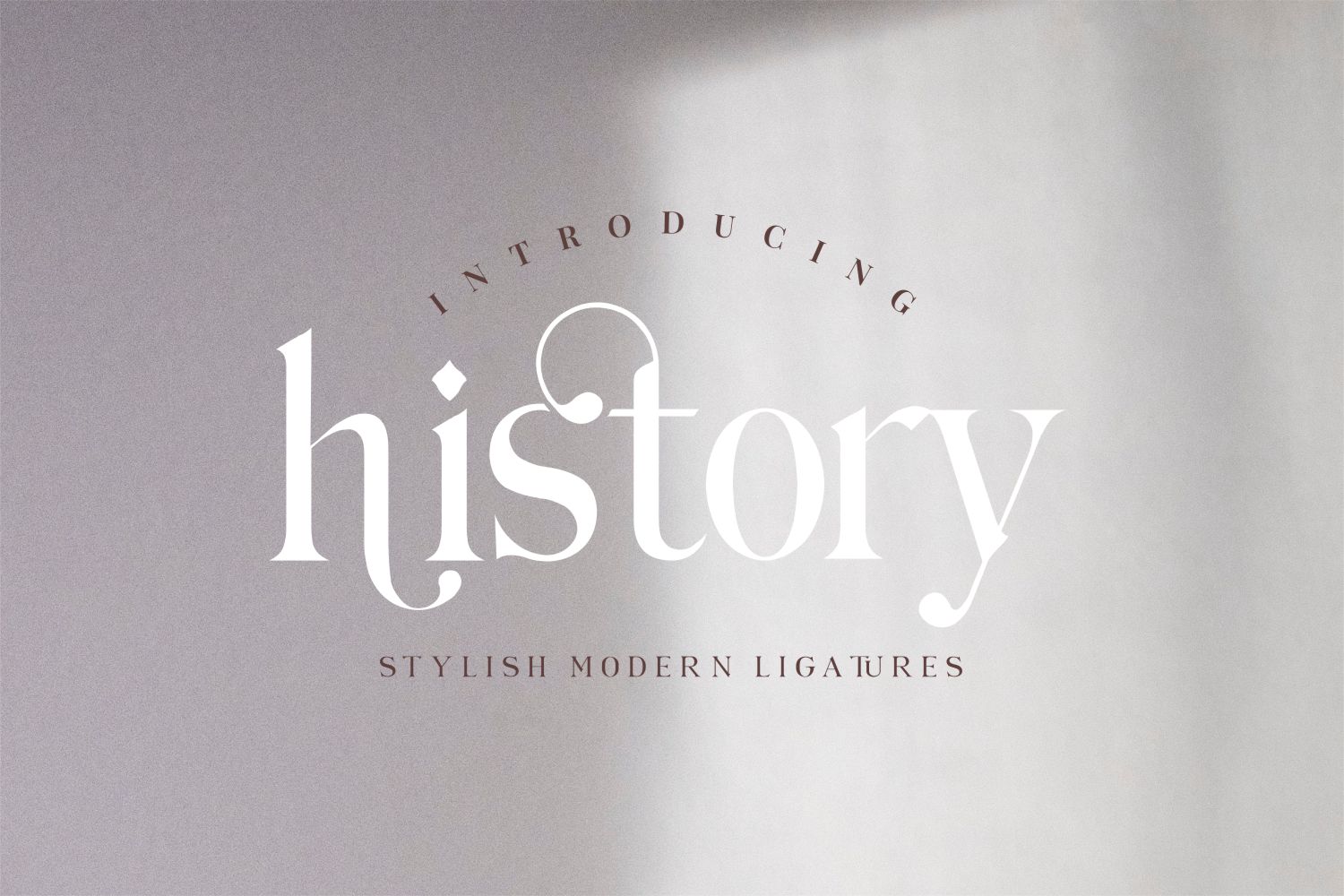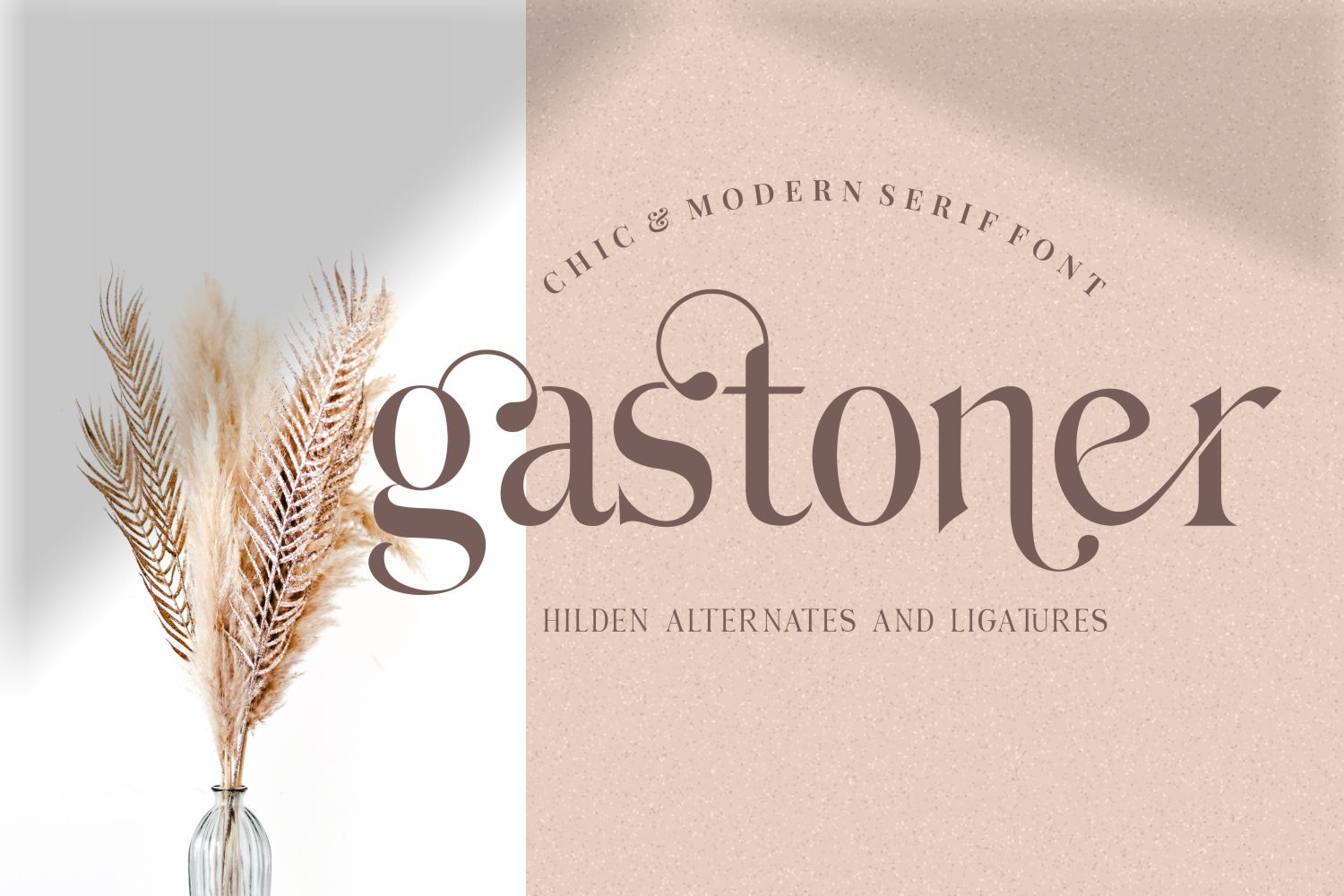
Hilden Serif Typeface
This is a serif typeface that is very elegant to use anywhere. Perfect for logo design, business cards, clothing branding, product packaging, magazine headlines, website design views or just as text overlay for any background image or for editorial projects.